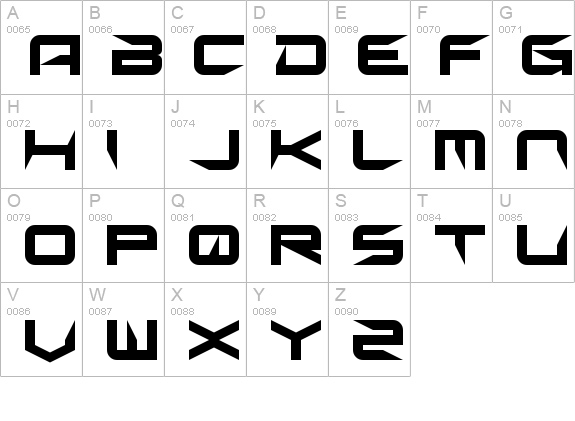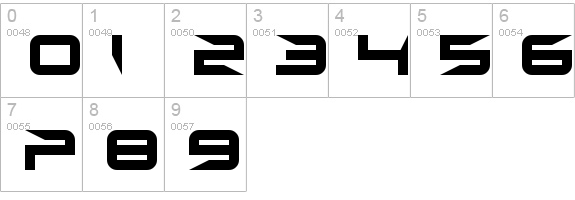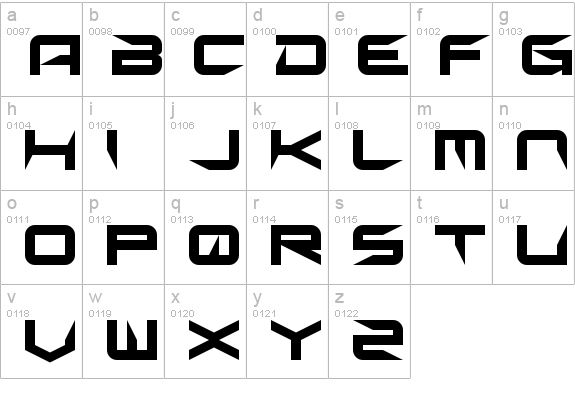
Sharp Regular Font Details
Sharp Regular is the standard, neutral variant in the Sharp typeface family \xE2\x80\x94 well suited to general body text, paragraphs, and standard typographic work.
Sharp Regular font is a sleek and modern typeface that exudes elegance and sophistication. Its sharp edges and clean lines make it perfect for a wide range of design projects, from branding to editorial design. The font's versatility allows it to be used in both digital and print applications, making it a go-to choice for designers looking for a contemporary and polished look. What's even better is that Sharp Regular font is available for free download at FontsMarket.com. This means that you can easily access this high-quality font without breaking the bank. Whether you're a seasoned designer or just starting out, Sharp Regular font is a valuable addition to your font library. Download it today and elevate your designs with its crisp and professional appearance.